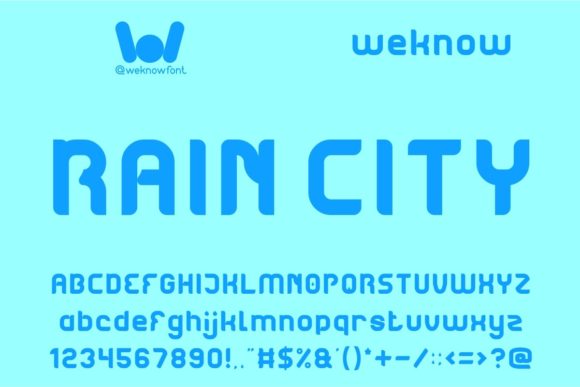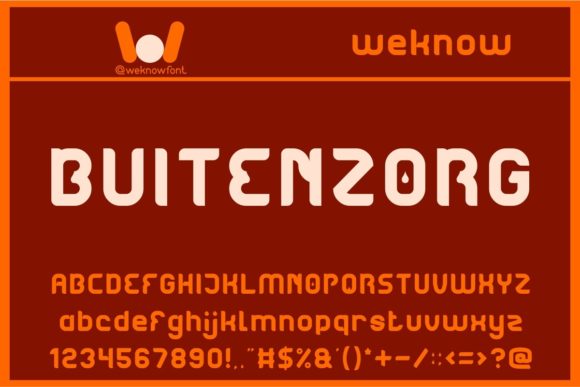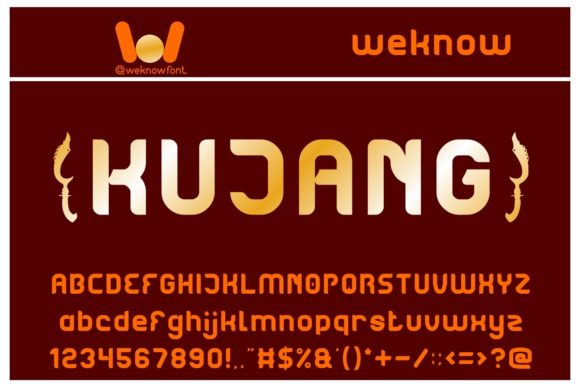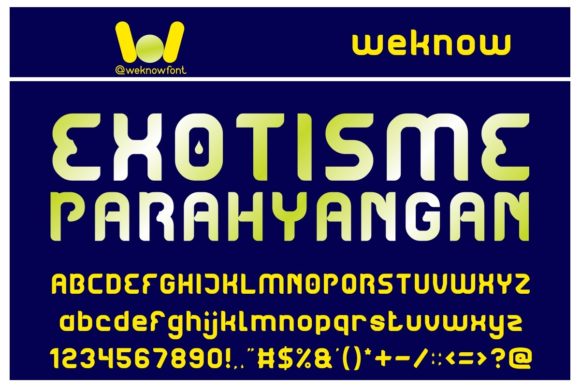
The Magic of Bogor Font: Elevate Your Designs with a Modern Whimsy
I still remember the frustration of working on a design project, hours spent crafting the perfect layout, only to be stumped by one thing: finding the right font. It was as if the text was an afterthought, a bland placeholder that refused to elevate my creative vision. My client wanted something modern yet playful, and I was on the verge of giving up. That’s when I stumbled upon Bogor Font, and it changed everything.
A Game-Changing Display Font
Bogor is an incredibly cool display font that has the potential to bring each of your creative ideas to the highest level! With a modern yet whimsical style, it’s perfect for designers, crafters, and creative hobbyists looking to add a touch of personality to their work.
• ✨ Unique and quirky design that stands out from the crowd
• ✅ Highly legible, even at smaller sizes
• 💫 Supports multiple languages and OpenType features
• 🎨 Extensive range of glyphs and stylistic alternates
While Bogor Font is an amazing display font, there are a few things to keep in mind:
• 🤔 May not be suitable for body text due to its bold and decorative nature
• ⚠️ Some characters may not work well in very small sizes or certain device displays
The Story Behind Bogor Font
Bogor Font was designed with the intention of creating a unique, modern display font that captures the essence of playfulness and creativity. The designer aimed to craft a font that would inspire users to push the boundaries of their imagination and bring a touch of whimsy to their designs.
Q: What type of projects is Bogor Font best suited for?
A: Bogor Font is perfect for creative projects, such as posters, flyers, social media graphics, and titles or headings for blogs, websites, or presentations.
Q: Is Bogor Font available in different weights or styles?
A: While Bogor Font may not have multiple weights or styles, its unique design and extensive range of glyphs and stylistic alternates make it versatile enough to be used in various contexts.